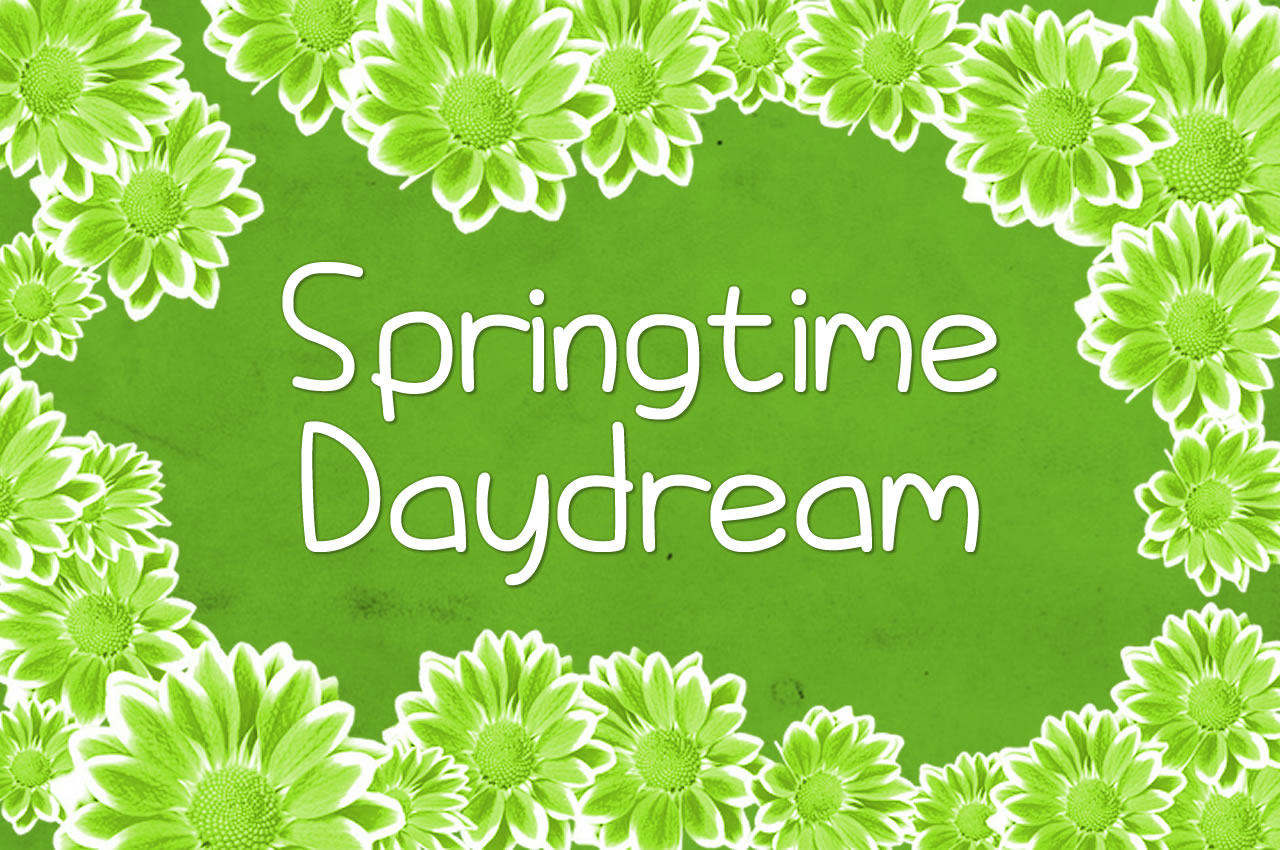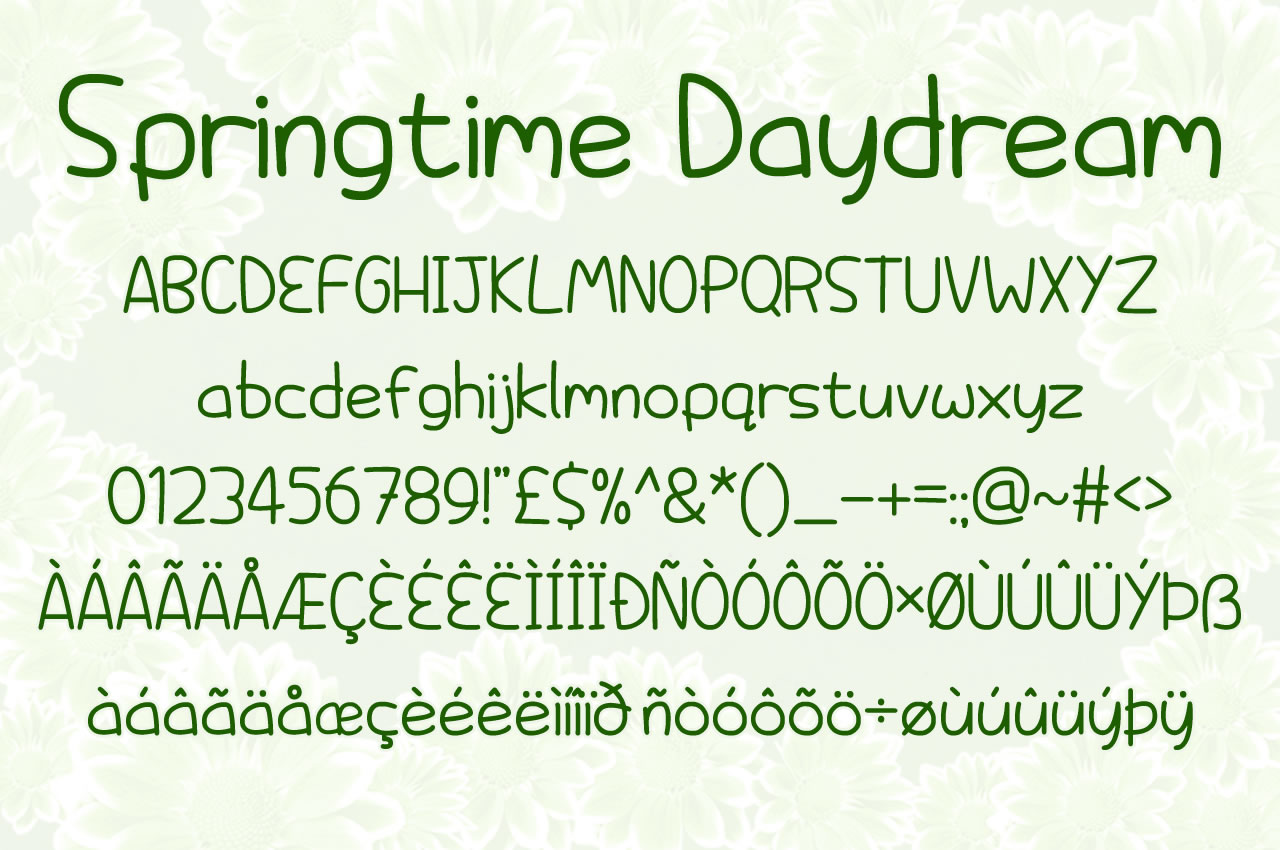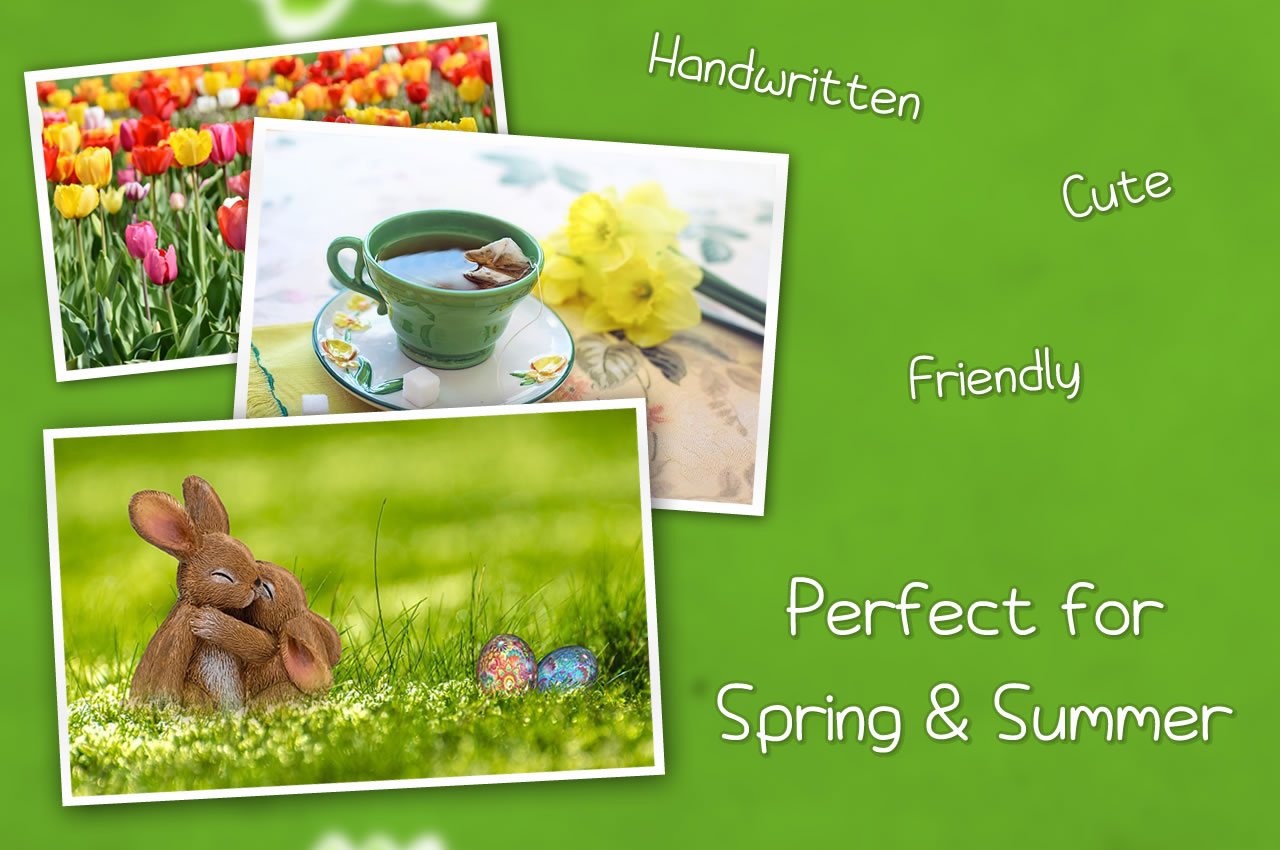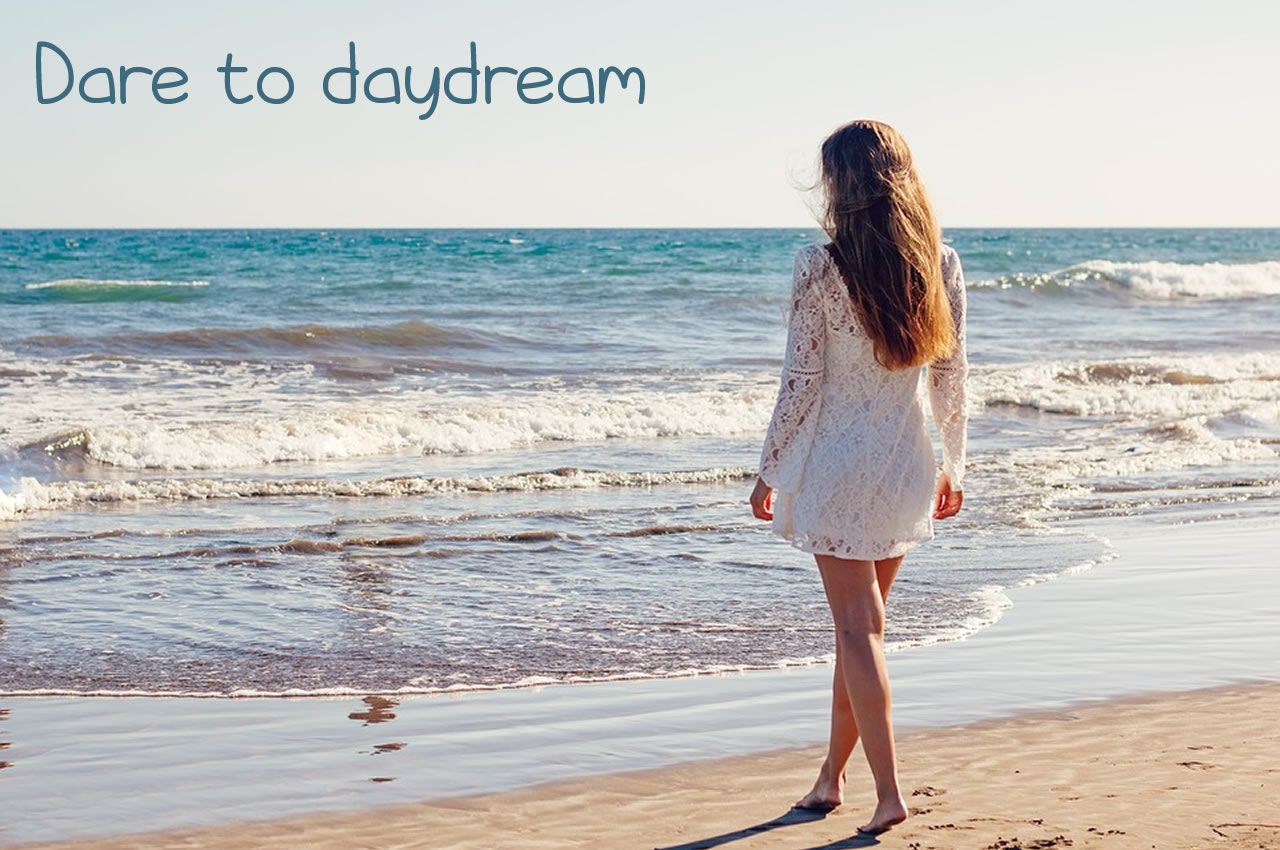
Springtime Daydream Font
About Springtime Daydream Font
Dare to daydream with this beautiful handwritten font which evokes feelings of spring and summer. Springtime Daydream is a script that is perfect for greetings cards.